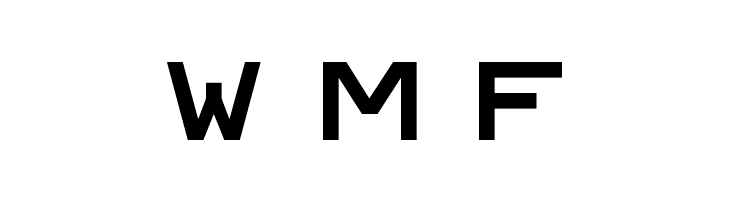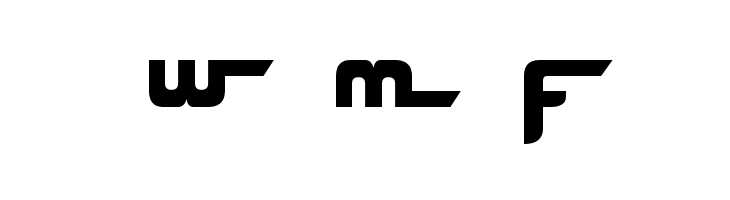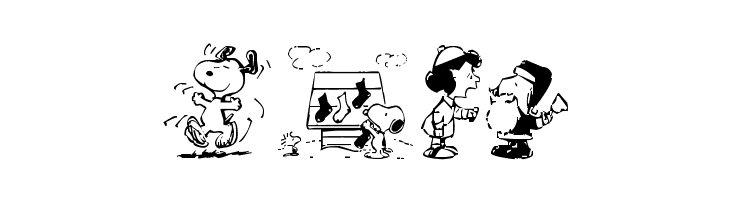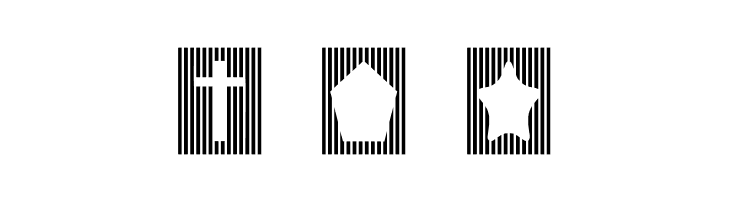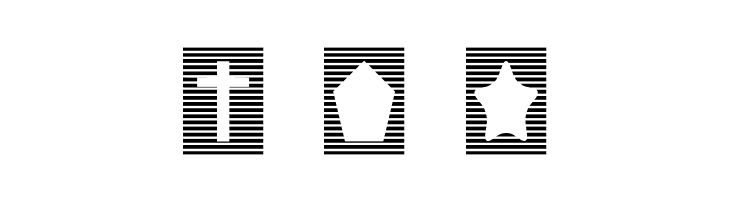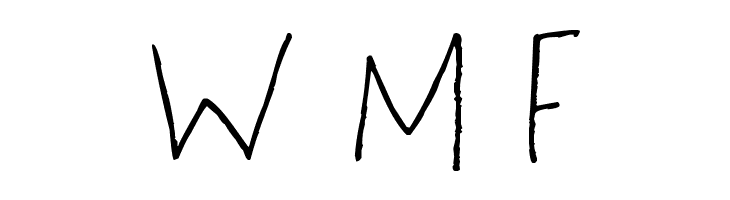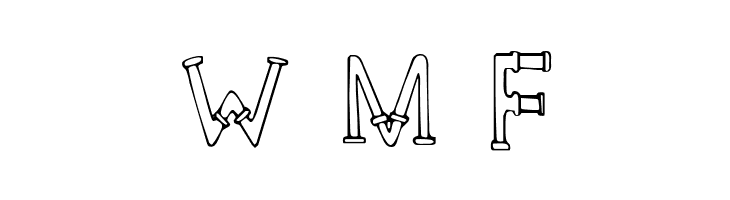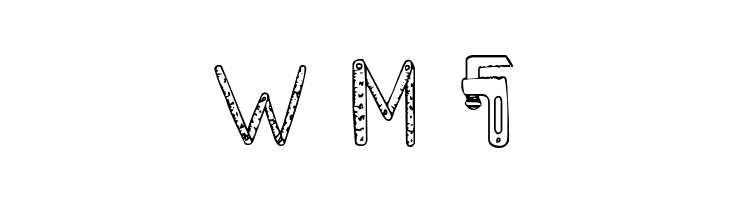
• SketchPipes
A playful, pipe-themed font with a bold, industrial design.
• SketchTools
A playful, tool-themed font with detailed, hand-drawn characters.
• SL Drops Of Moonlight
A futuristic, geometric font with bold, stylized characters and star accents.
• SL Panzerkardinal
A bold, geometric font with a futuristic and industrial design.
• SL Runaway Girl
A playful, handwritten font with flowing, cursive-like strokes.
• SL Thank You For The Venom
A bold, angular font with a modern, geometric style.
• Slats n Things
• Slats n Things 2
• Smitten Kitten
A playful, handwritten font with whimsical strokes and a casual, lively appearance.
• Snoopy Dings